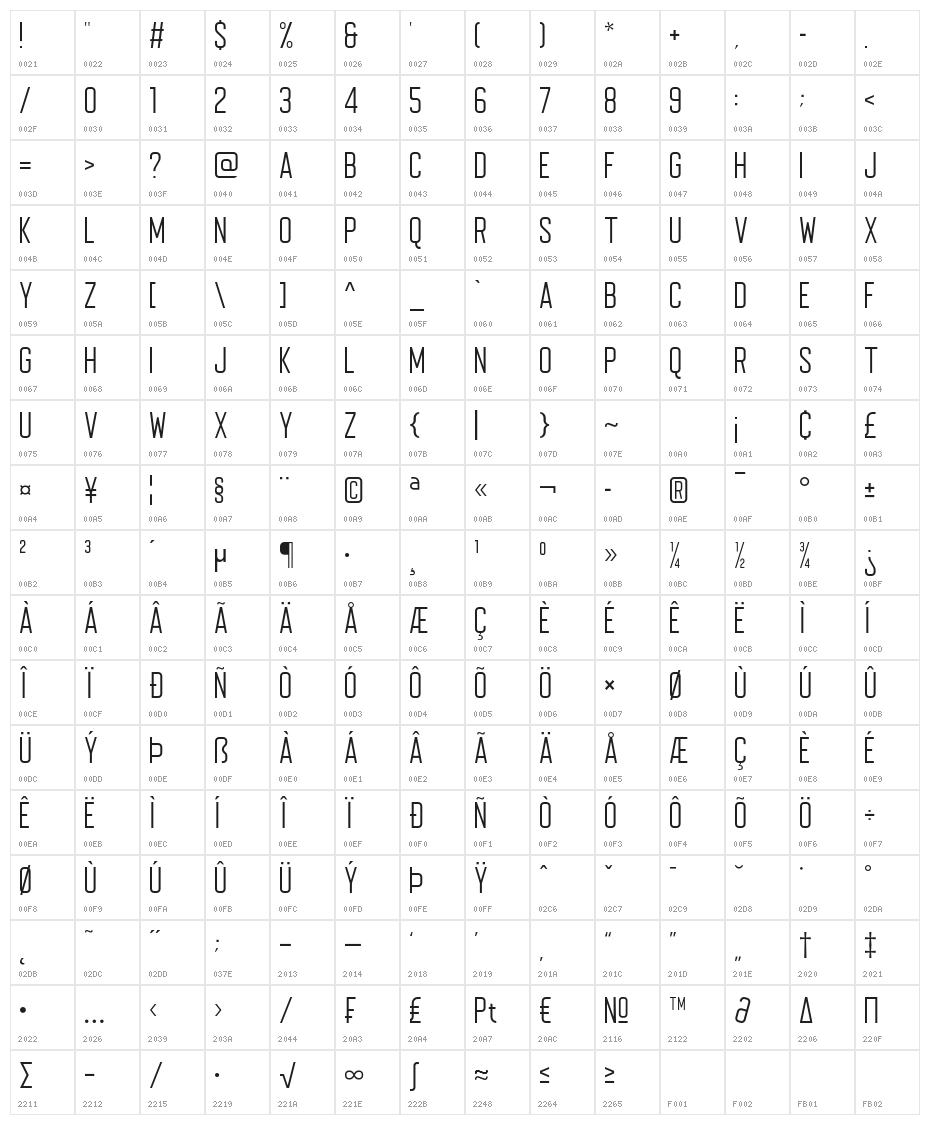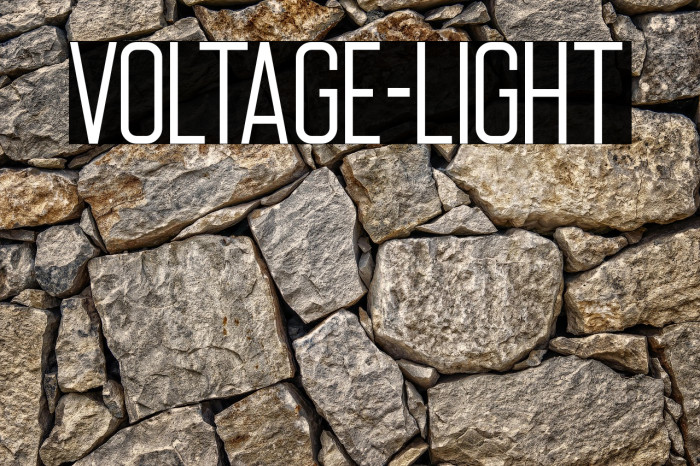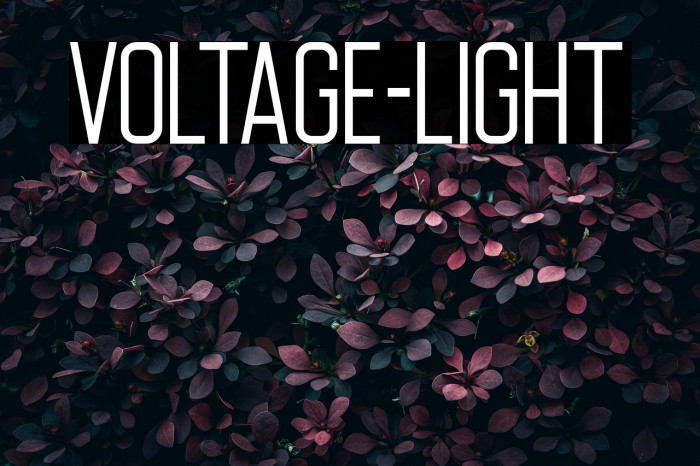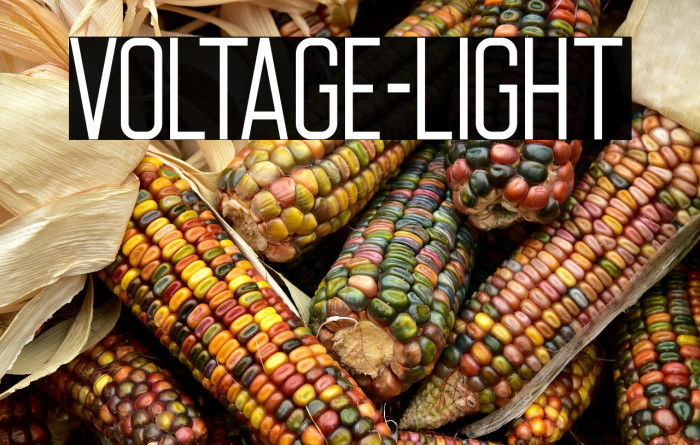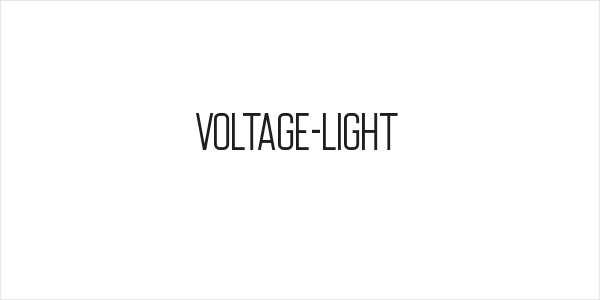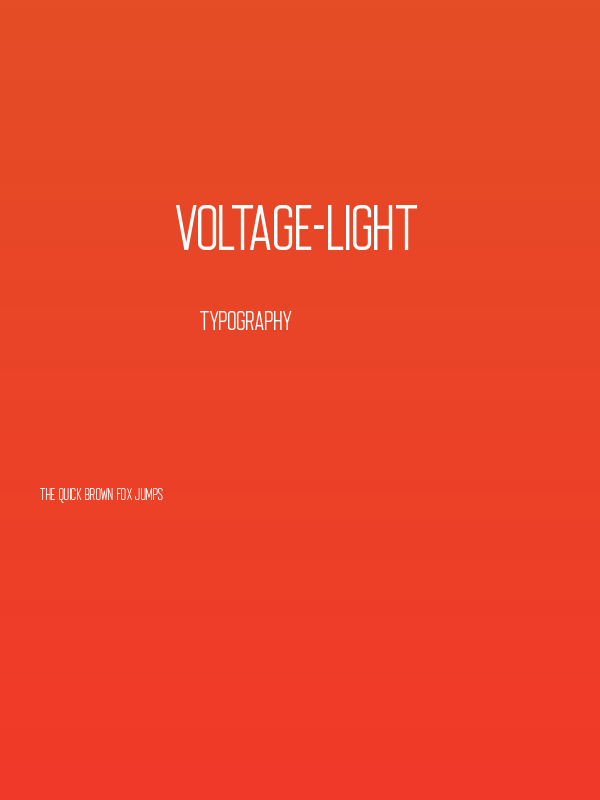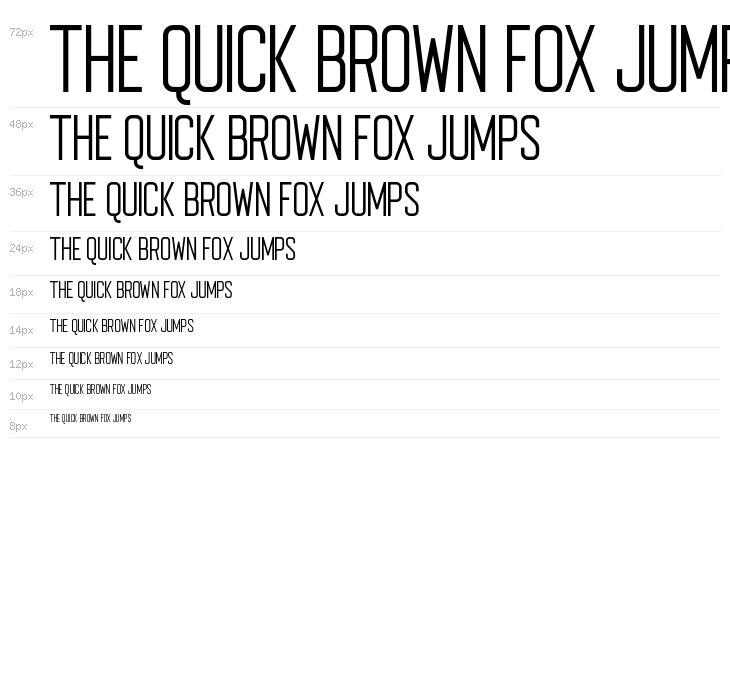
Voltage-Light Font
Voltage-Light Description
This font features a clean, modern design with tall, narrow letterforms that convey a sense of elegance and sophistication. The characters are evenly spaced, providing a balanced and harmonious appearance. The straight lines and sharp angles give it a contemporary feel, making it suitable for a variety of design applications. The uppercase and lowercase letters maintain a consistent style, while the numerals and special characters are designed to complement the overall aesthetic. This font is ideal for projects that require a sleek and professional look.
Proposed ProjectsIdeal for branding, editorial design, advertising, and digital media projects.